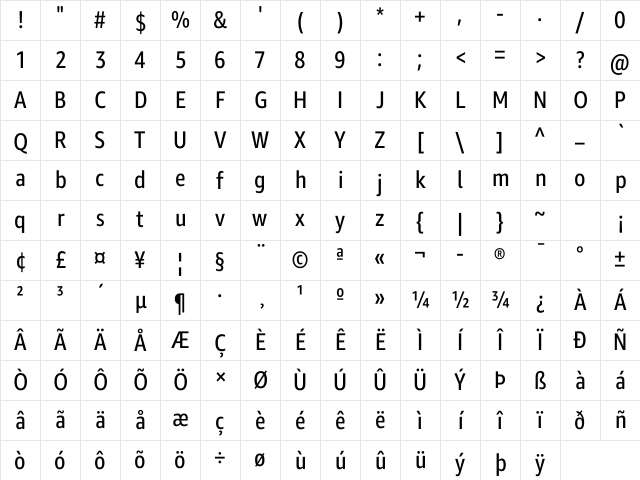
Amazon Ember Cd RC Regular
Foundry: Dalton Maag Ltd
Designer: Dalton Maag Ltd
Design Context for Amazon Ember Cd RC
Amazon Ember Cd RC is a composed and adaptable typeface that performs quietly and consistently across a wide range of design contexts.
Who designed the Amazon Ember Cd RC Regular font?